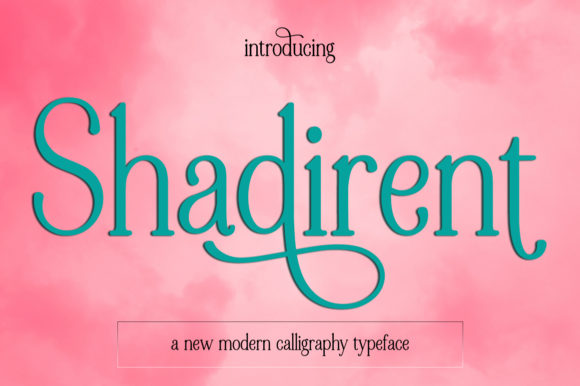
Are you tired of the same old boring fonts, longing for a typeface that captures the essence of elegance and individuality? Look no further than Shadirent, the serif font that sparks creativity and elevates your designs. Crafted by the ingenious minds at Greentype, this font family is the embodiment of sophistication and versatility.
Unleash your inner scriptwriter with this captivating creation. Shadirent's bold curves and refined strokes lend themselves perfectly to the art of storytelling, making it an ideal choice for movie posters, book covers, and other projects demanding a touch of cinematic flair. But its prowess extends beyond the realm of fiction; Shadirent is equally adept at crafting elegant invitations, certificates, and branding materials that exude timeless charm.
Imagine your words dancing across the page, imbued with a sense of grace and authority. Shadirent's carefully balanced serifs add a touch of visual intrigue, drawing the reader's eye and inviting them to delve deeper into your message. Whether you're a graphic designer seeking to leave an indelible mark or an aspiring novelist seeking the perfect font to bring your characters to life, Shadirent is your steadfast companion.
Embrace the power of Shadirent and witness the transformation of your creative ideas into captivating realities. This font is more than just a collection of letters; it's an investment in your creative journey, a gateway to a world of endless possibilities. Don't settle for ordinary when you can have extraordinary. Choose Shadirent today and unlock the true potential of your creative genius.